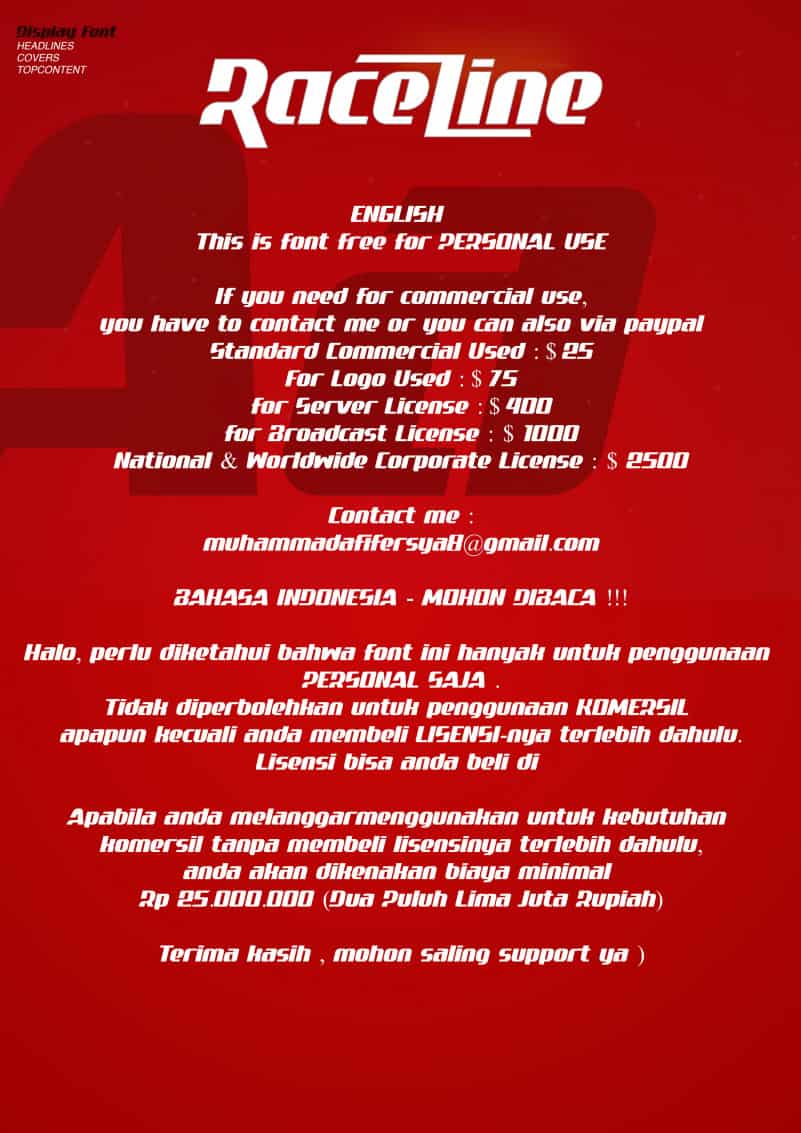
Raceline Font
Raceline Font is a creative typeface made by the hand of lettering artist and lovingly put together by me. Awesome sport font with italic wide letters, modern letter cutout and dynamic slant. Ideal for sports headline of speed car race, logo and monogram of automotive game or other modern dynamic text